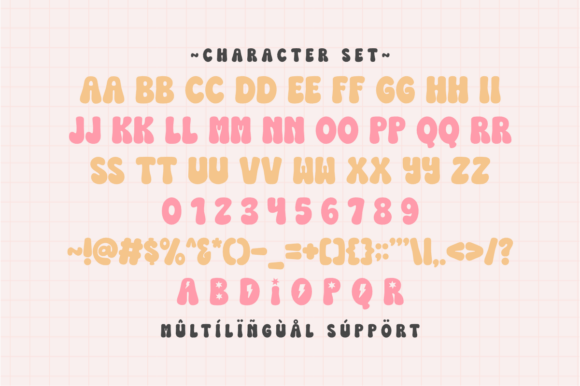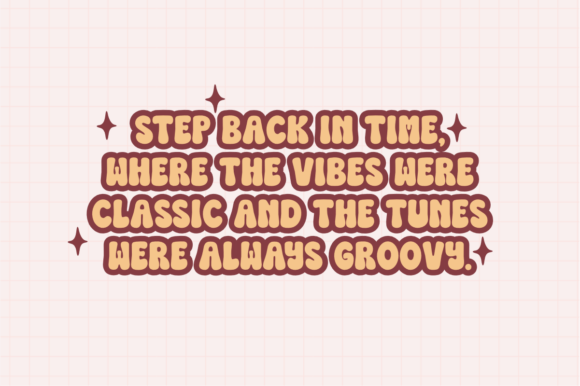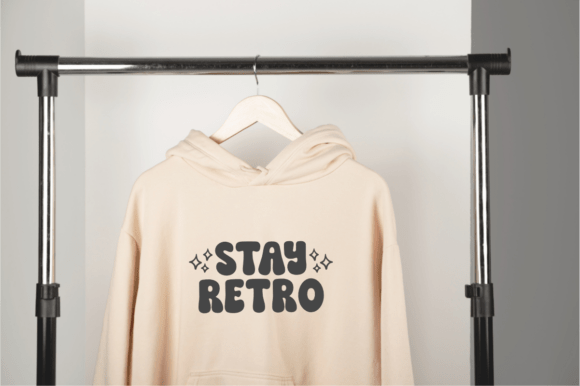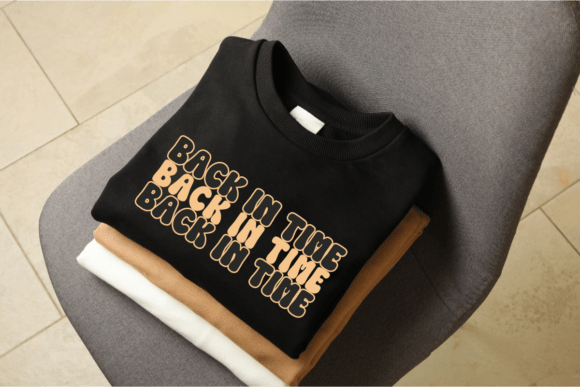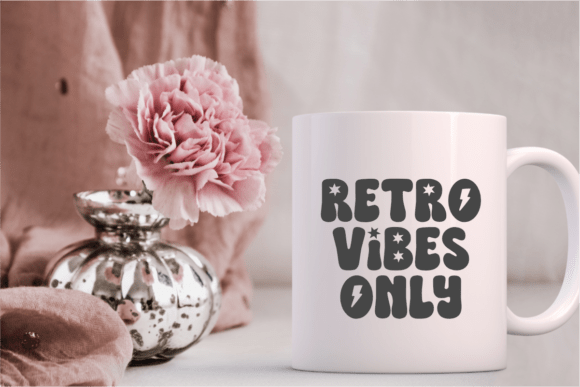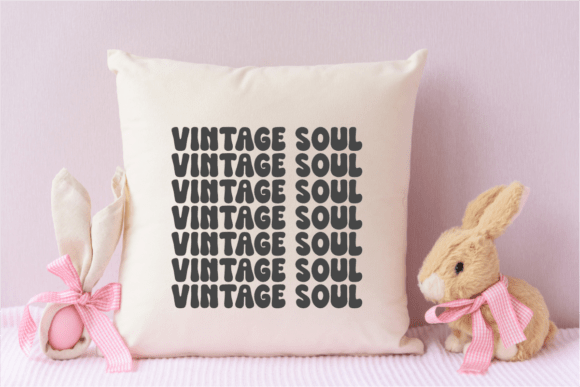
Get Ready to Groove with the Bubble Vibes Font
You know that feeling when you’re browsing through old family photos or stumbling upon a vintage treasure, and suddenly you’re transported back to a bygone era of carefree fun and colorful charm? For designers and creatives, capturing that same essence of nostalgia and whimsy in their projects can be a challenge. But what if you had a secret ingredient that could infuse your designs with the playful spirit of the 60s and 70s?
Enter the Bubble Vibes Font, a delightful bubble retro display font that effortlessly brings a touch of retro flair to your designs. With its plump, rounded, and wonderfully soft letterforms, this font is perfect for adding a dash of fun and nostalgia to a wide range of creative projects. Whether you’re crafting stickers, designing t-shirts, or creating planner elements, the Bubble Vibes Font is sure to bring a smile to your face and a touch of magic to your work.
Bubble Vibes Font Key Features
- Font Family: Bubble Vibes, with 6 styles (Regular, Italic, Bold, Bold Italic, Light, Light Italic)
- Character Set: Supports Latin, Cyrillic, and Greek alphabets, as well as various punctuation and special characters
- Unique Characteristics: Features a playful, rounded design with subtle texture and a range of expressive weights, making it suitable for creative and emotive applications
Bubble Vibes Font Review
I’ve had the chance to work with the Bubble Vibes Font, and here’s my honest take on it. ✨ The first thing I noticed is the playful, whimsical feel it brings to designs. It’s perfect for creating a fun, carefree atmosphere, especially in social media graphics, advertisements, and kids’ content. The font’s rounded edges and bubbly texture add a touch of warmth and approachability.
One of the things I love about Bubble Vibes is its versatility. ✨ It comes in a range of weights, from light to bold, allowing designers to experiment with different styles and moods. The font is also highly legible, making it suitable for body text as well as headlines. Additionally, the font’s OpenType features enable some great typographic flourishes, such as ligatures and swashes.
While Bubble Vibes is a great font for many projects, there are some limitations to consider. ⚠️ For one, the font may not be the best choice for formal or professional designs, as its playful vibe may come across as too casual. Additionally, some users may find the font’s rounded edges and texture a bit overwhelming or busy.
Overall, I think the Bubble Vibes Font is a great addition to any designer’s toolkit. While it may not be the best fit for every project, it’s perfect for designs that require a fun, lighthearted touch. With its versatility and OpenType features, it’s a great choice for designers who want to add some visual interest to their work.
- Playful, whimsical feel
- Range of weights (light to bold)
- Highly legible
- OpenType features (ligatures, swashes)
- Perfect for social media graphics, advertisements, kids’ content
To get the most out of the Bubble Vibes Font, try combining it with bold colors and playful graphics.
The Bubble Vibes Font is perfect for:
Creating fun and playful social media graphics.
Designing eye-catching advertisements.
Adding a touch of whimsy to your website or blog.